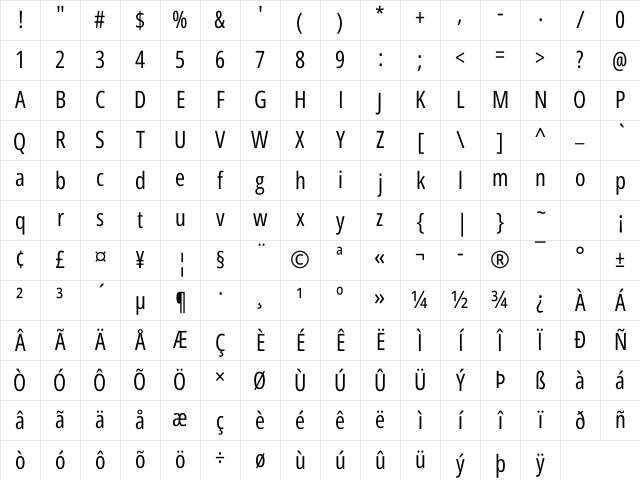
Open Sans Hebrew Condensed Regular Free Font
Open Sans Hebrew Condensed Regular
Complete Open Sans Hebrew Condensed Regular glyph index. Displaying only characters natively supported by Open Sans Hebrew Condensed Regular font.
Design Context for Open Sans Hebrew Condensed
Open Sans Hebrew Condensed is a composed and adaptable typeface that performs quietly and consistently across a wide range of design contexts. Its narrow stance lets it pack a punch even in space-constrained designs.